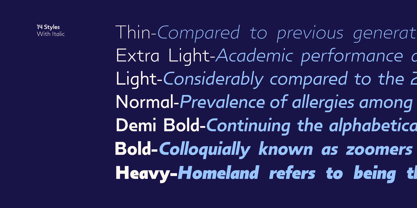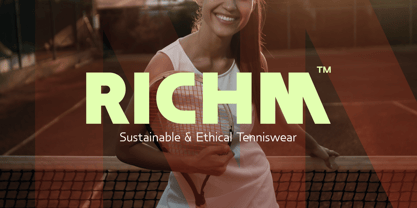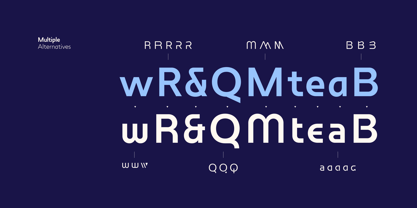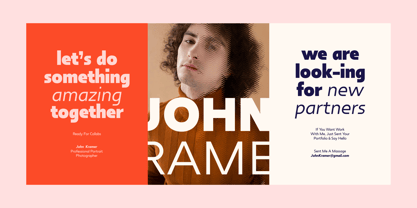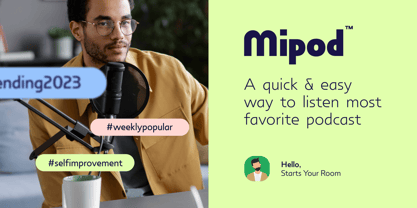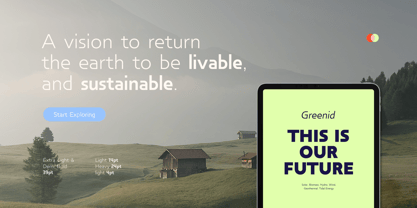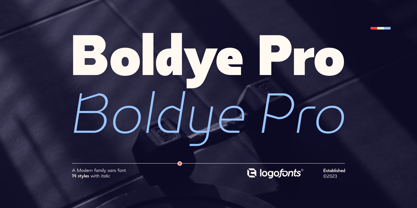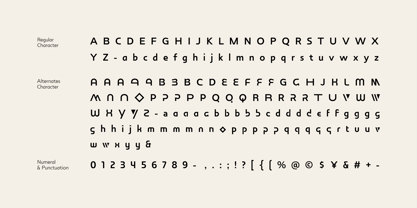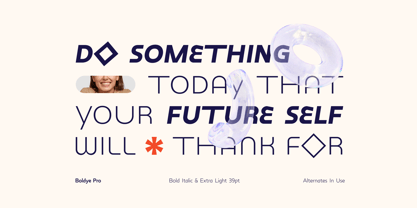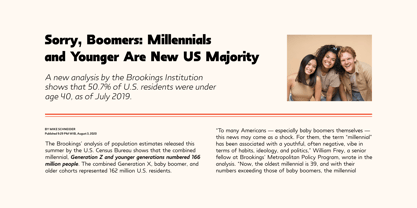
Boldye Pro
by Logofonts
The Boldye Pro Font Family was designed by Satia Hayu Prabowo, Anna Safitri and published by Logofonts. Boldye Pro contains 14 styles and family package options. More about this family
Boldye Font Inspired by the Reebok Logo and Sport typeface style. Boldye are strong on the curves and sharp on the edges of some of the letters suitable for logo projects, branding, posters with sports themes. Easily creates your own logo type with fonts. Boldye has 7 weights, as well the matching true italics forms, provides typographical support with features such as ligatures, alternate characters, case-sensitive forms, fractions, and super and subscript characters. It comes with a complete range of figure set options – oldstyle and lining figures, each in tabular and proportional widths.
Designers: Satia Hayu Prabowo, Anna Safitri
Foundry: Logofonts